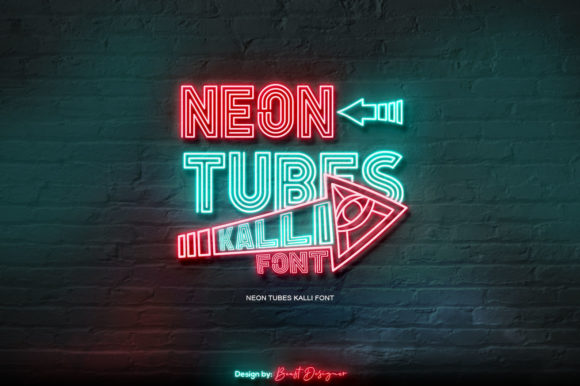
Neon Tubes Kalli Font
Neon Tubes Kalli is a cool, retro styled and fun display font. It has a whimsical style and it will undoubtedly immerse your designs into a magical world.